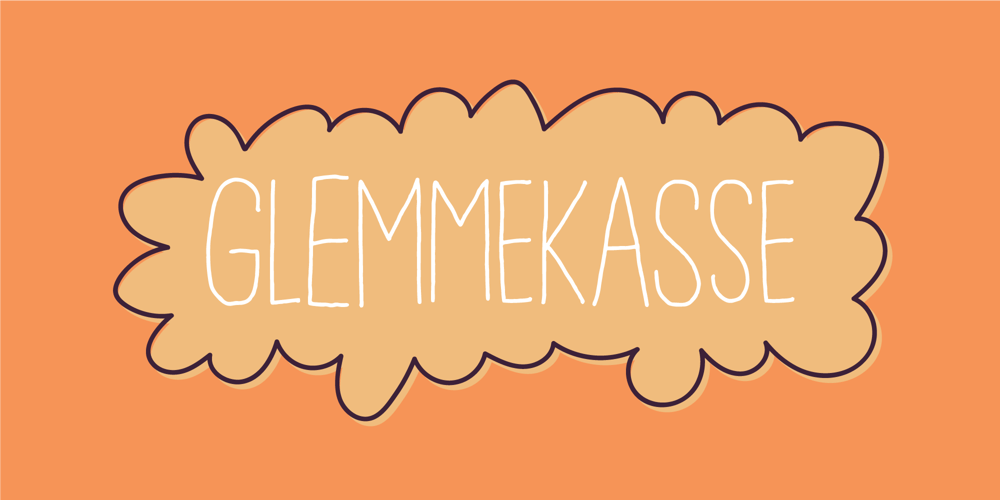
Glemmekasse Font Family was designed by Jakob Fischer and published by PizzaDude.dk. Glemmekasse contains 2 styles and family package options. Glemmekasse is danish and means something like “lost and found” – only it is typically found in a kindergarten!I did find this font in an old folder of mine – and I found it just like looking through lost and found. Why I never completed this font before now, I don’t know – because I see a lot of possible use for this handmade beauty: packaging, invitations, posters, packaging for organic products and much more!– Uppercase